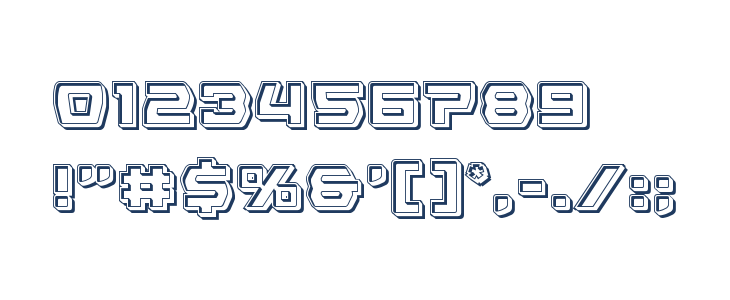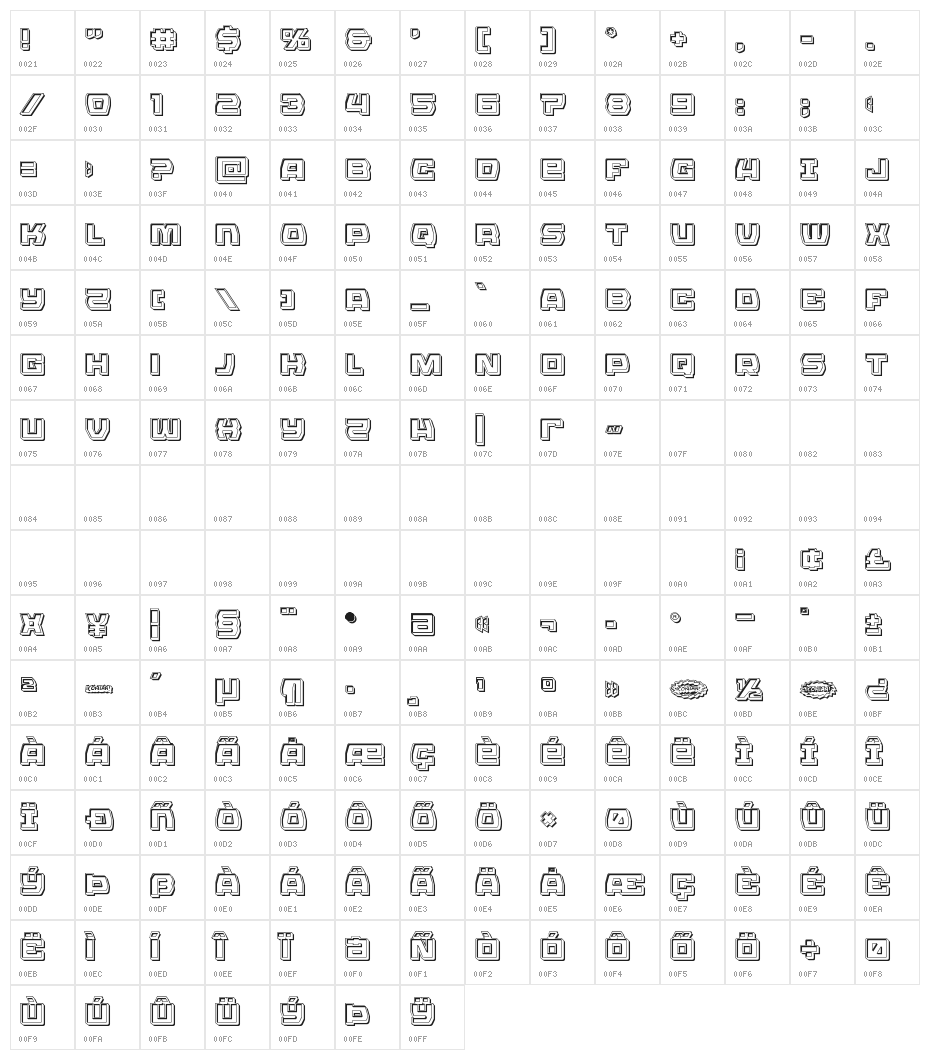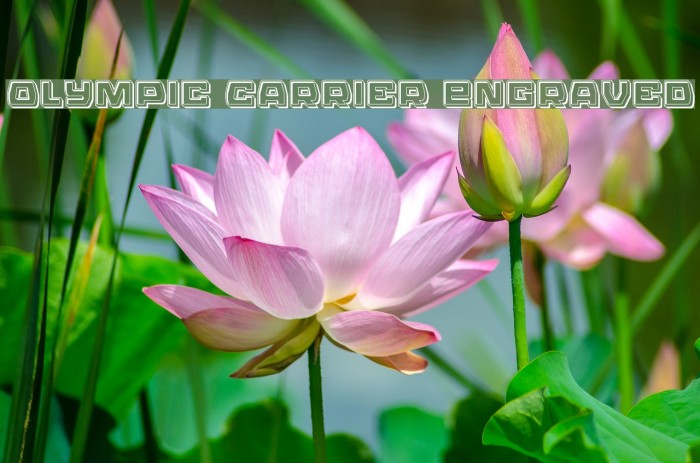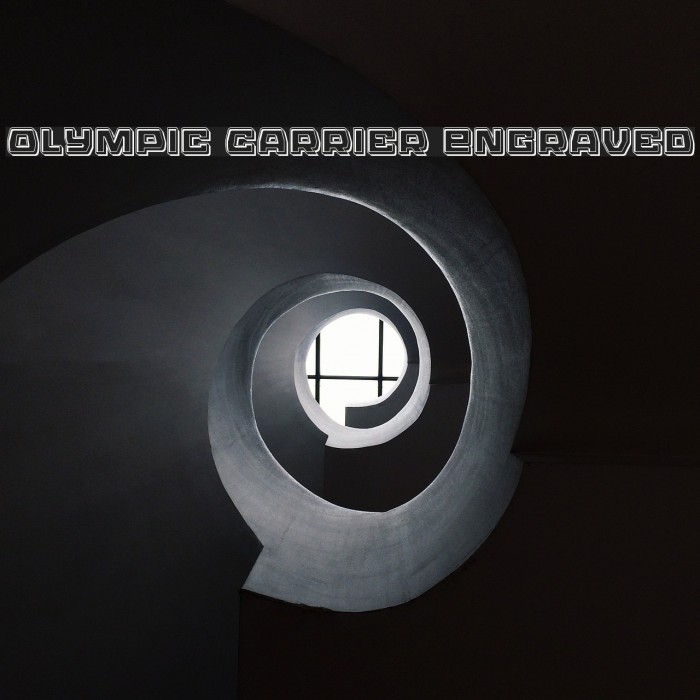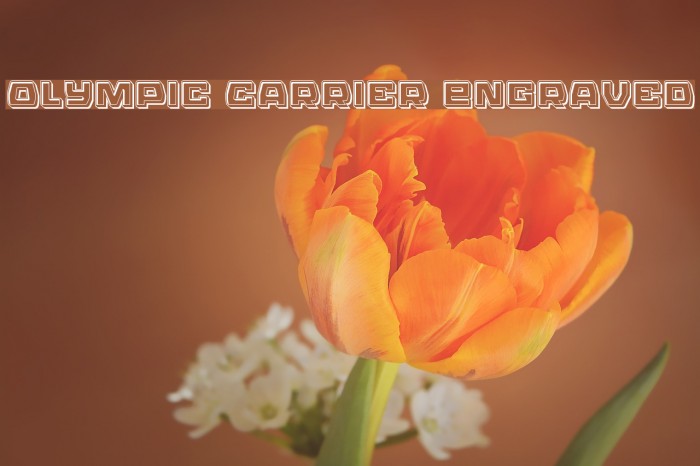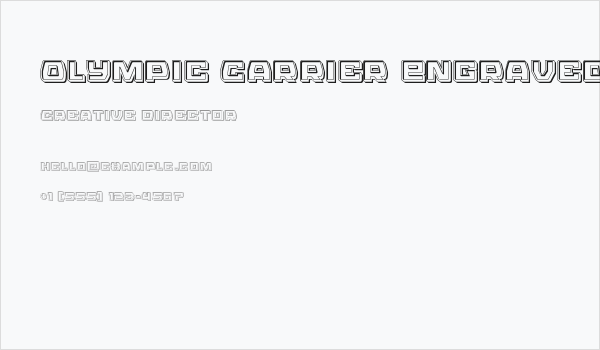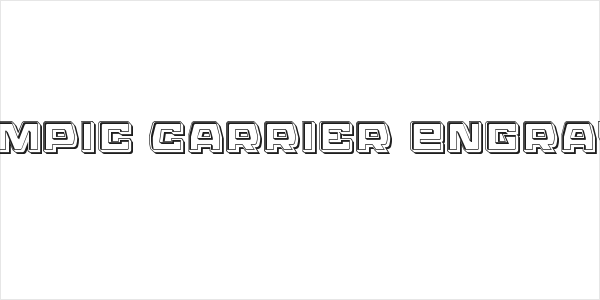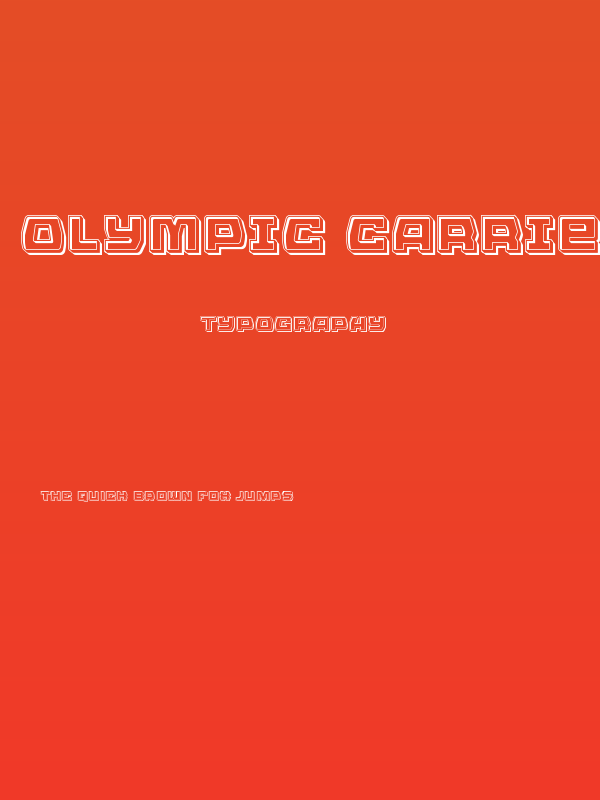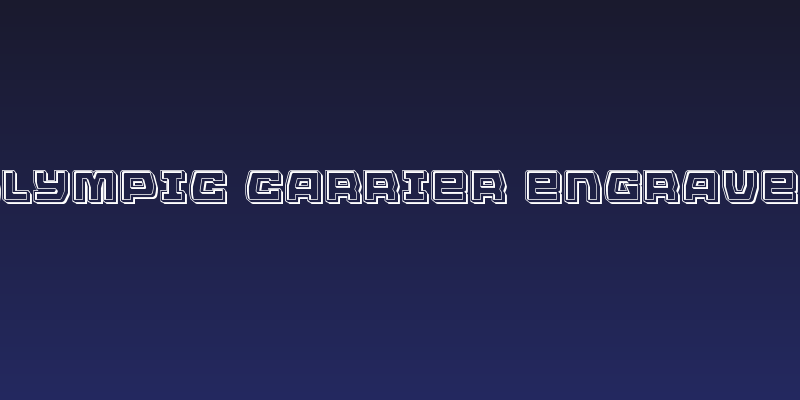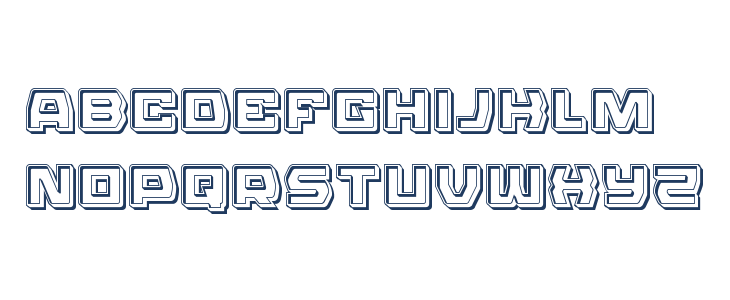
Olympic Carrier Engraved Font
Olympic Carrier Engraved Description
This font features a bold, geometric design with a three-dimensional engraved effect. The characters are outlined with a double line, creating a sense of depth and dimension. The style is consistent across uppercase, lowercase, numerals, and special characters, maintaining a uniform appearance. The font's structure is blocky and robust, making it stand out prominently. Its unique engraved look gives it a futuristic and industrial feel, suitable for projects that require a strong visual impact.
| Overall Style | Futuristic, Industrial |
| Proposed Projects | Ideal for use in branding, posters, video game graphics, and any project needing a bold, industrial aesthetic. |